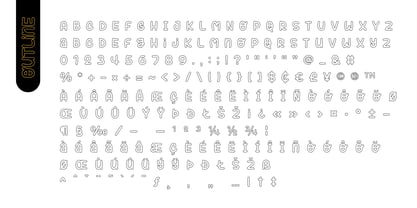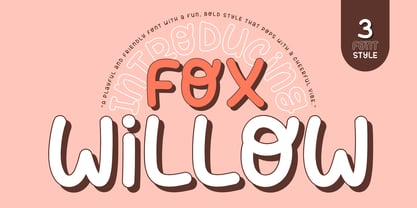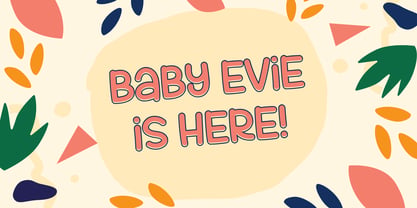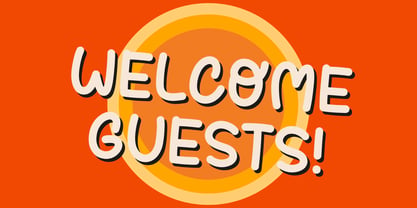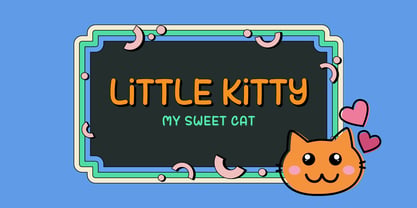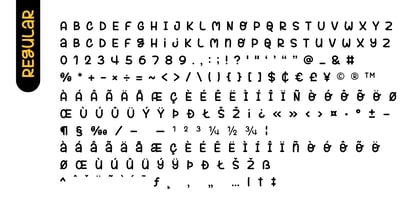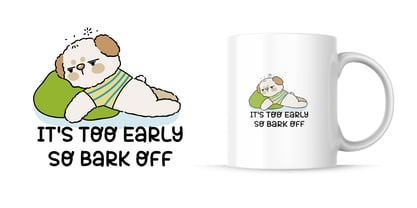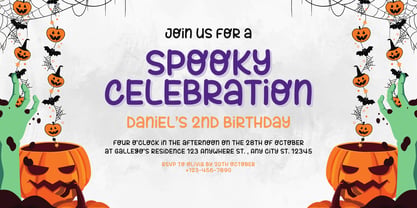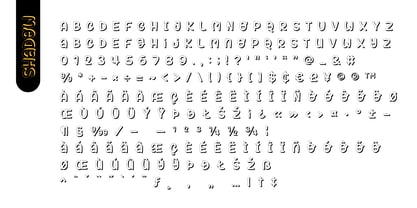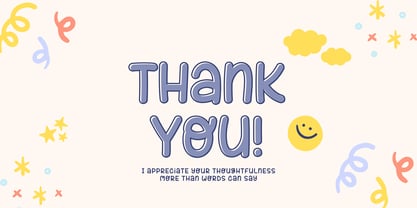
Fox Willow
por Fox7
La familia tipográfica Fox Willow fue diseñada por Rattana Rattanawan y publicada por Fox7. Fox Willow contiene 3 estilos y opciones de paquete familiar. Más información sobre esta familia
Fox Willow is a playful and friendly font with 3 charming styles —Regular, Outline, and Shadow—perfectly crafted for Kids branding, baby products, storybooks, quote prints, classroom materials, birthday invitations, stickers, and more!. With its bold curves and cheerful personality, this font family pops with warmth and positivity.
Diseñadores: Rattana Rattanawan
Fundición: Fox7